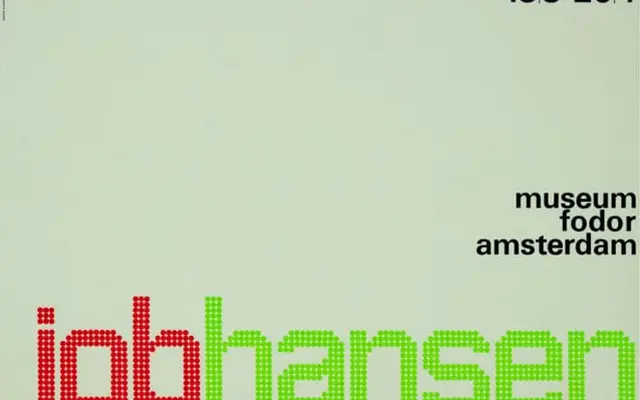
Architype Ingenieur
The Foundry Types · Wim Crouwel · 2012
A grid-based geometric family by Wim Crouwel, formalised from his 1960s exhibition lettering for the Stedelijk Museum and Venice Biennale catalogues.
Developed in collaboration with Wim Crouwel and released in 2012, the design codifies his system of 45-degree angled strokes replacing conventional curves, first seen in exhibition catalogues and posters from 1960 onwards. The four-style family runs Light, Regular, Bold and a Dot variant that references the dot matrix adaptations Crouwel made for posters such as the 1964 Job Hansen Fodor Museum piece. The name derives from Crouwel's own words: 'I am an engineer, troubled by aesthetics.'
A strictly grid-based geometric construction with 45-degree angles replacing curves, rooted in Crouwel's engineered letterform system from the 1960s. Its dot matrix variant and angular geometry place it firmly in display territory rather than conventional geometric sans.